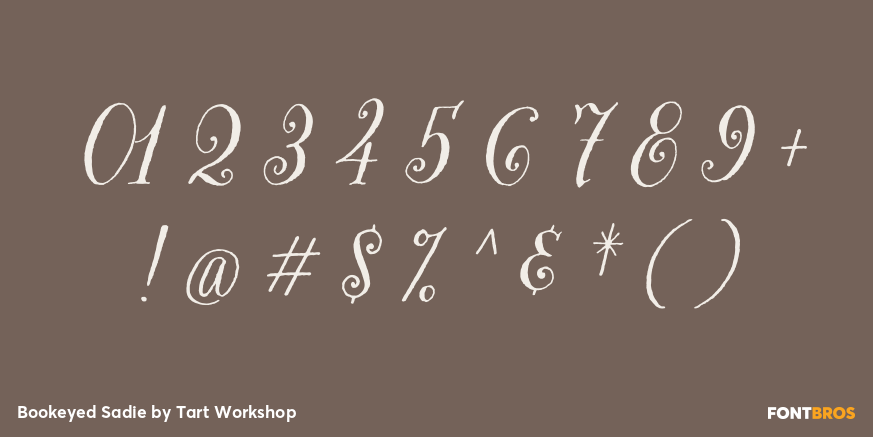
Bookeyed Sadie
Font Family by Tart Workshop
Bookeyed Sadie has a big voice and powerful curves calling attention. She's an Open Type font filled with a beautiful ligatures, contextual & stylish alternates. With a healthy collection of glyphs (including alternate caps, roman numerals, 2 sets of arabic numerals, and more) you can easily dress her up or down to suit the occassion and fit the project perfectly. Her handdrawn lines reference vintage type in a modern quirky style and Sadie comes with a complete collection of dazzling ampersands to match!
Smart, sweet & sexy Bookeyed Sadie loves book designs, titles, logos & headlines and naturally works incredibly well with her cousins, Bookeyed Jack, Bookeyed Suzanne and Bookeyed Nelson.